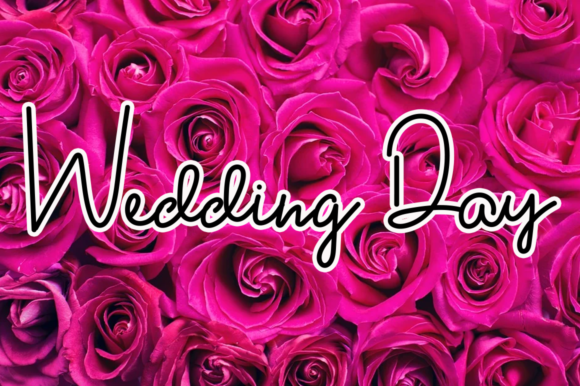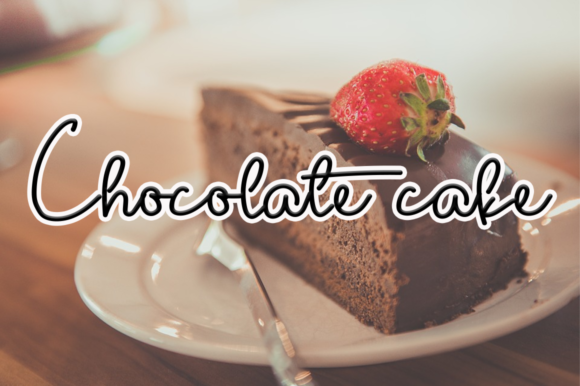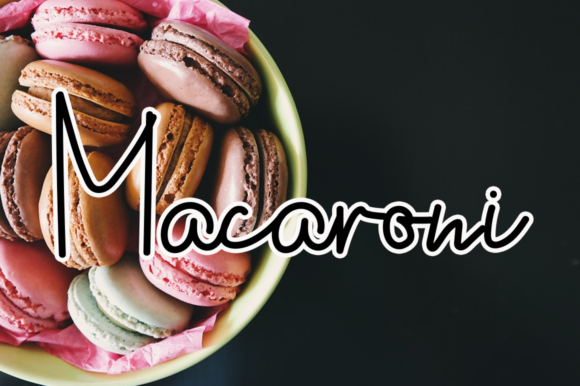
Introduction to Pretty Lollitta Font
Have you ever found yourself staring at a blank page, trying to decide on the perfect font to bring your creative project to life? For many designers, this is a familiar moment of frustration, but what if we told you that there’s a font that can make this process a breeze? Say hello to the Pretty Lollitta Font, a simple, thin, and sweet handwritten font that’s about to become your new go-to design resource.
With its incredibly versatile design, the Pretty Lollitta Font is the perfect addition to any creative project. Whether you’re working on a free download or a high-quality design, this font is sure to elevate your work to the highest levels. Plus, its transparent background makes it easy to use on any design surface, giving you complete control over your creative vision.
For designers, the Pretty Lollitta Font is a valuable resource that’s sure to save you time and stress in the long run. So why not give it a try and see how it can transform your design process?
Key Features of Pretty Lollitta Font
- High-quality, professional font design suitable for creative projects
- Unique characteristics: playful, whimsical, and elegant design elements make it perfect for artistic and creative projects
- Can be used as a design resource for various applications, including digital art, graphics, and typography
Honest Review: Pretty Lollitta Font
I recently had the chance to work with the Pretty Lollitta Font, and I must say it’s a lovely addition to any creative project. The font is free to download, which is always a bonus for designers on a budget.
- ✨ The Pretty Lollitta Font has a high quality design that is perfect for feminine-themed projects.
- ✨ The font has a transparent background, which allows for easy use in various design applications.
However, there are a few limitations to consider. The font only includes a limited number of characters, which may not be suitable for longer texts.
- ⚠️ Limited character set, may not be suitable for longer texts.
Overall, I’m quite impressed with the Pretty Lollitta Font. It’s a great resource for designers working on creative projects, and it’s a lovely addition to any design collection.
Tips for Getting the Most Out of Pretty Lollitta Font
To get the most out of Pretty Lollitta Font, use it with a transparent background to create a seamless design. You can also pair it with other design resources, such as graphics and illustrations, to create a unique and eye-catching design.
Pretty Lollitta Font is commonly used for creative projects, such as branding, marketing materials, and social media graphics. It’s also a great resource for designers who need a high-quality, free download font for their designs.